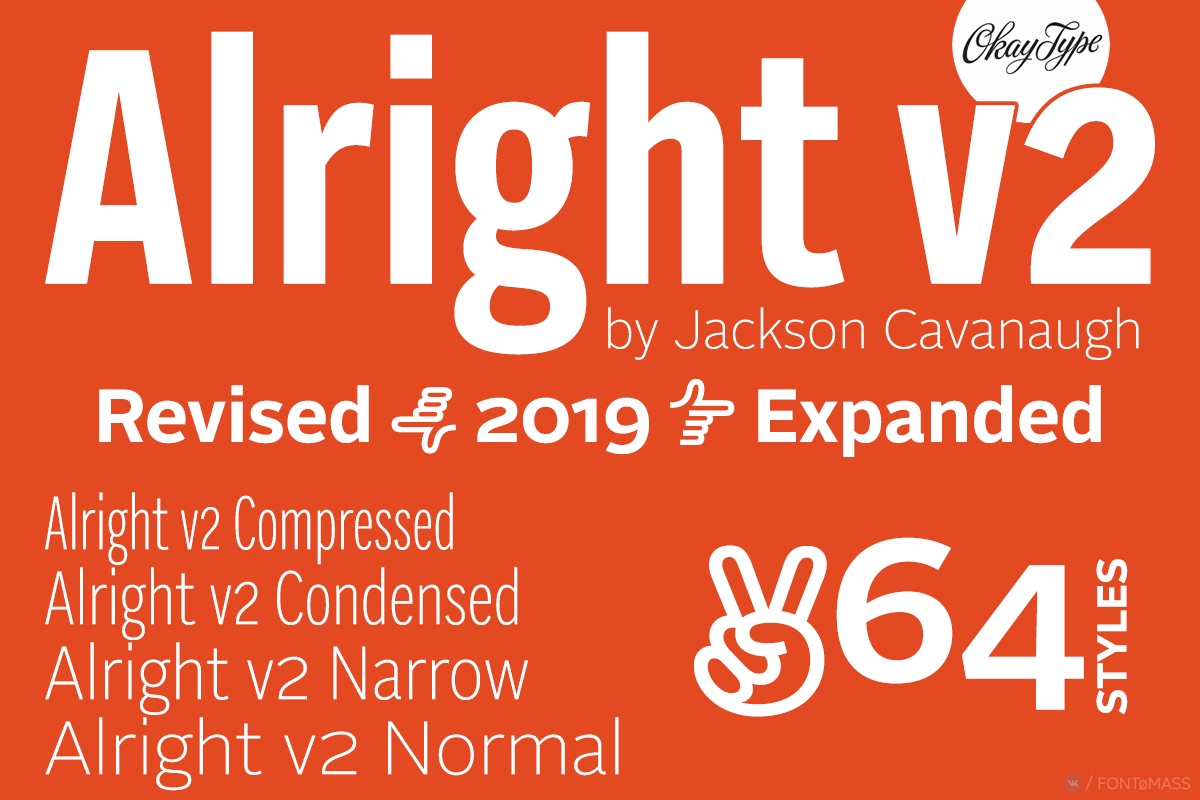
Alright v2 Font
Alright v2 Font is perfect for contemporary brand identities, modern startup logos, casual lifestyle branding, friendly app interfaces, approachable corporate communications, versatile web typography, social media graphics, relaxed restaurant signage, confident business materials, and optimistic marketing campaigns.
What makes Alright v2 Font so exciting is its remarkable ability to communicate confident approachability and modern optimism through letterforms that seem to radiate positive energy and reliable competence with every character. This enhanced typeface represents the evolution of casual professionalism, featuring characters that perfectly balance friendly accessibility with professional credibility. The font's refined design elements perfectly merge contemporary confidence with universal appeal, creating an indispensable tool that communicates reliability, positivity, and modern professionalism, making it essential for brands that want to project confident competence while remaining genuinely approachable and authentically human in their communications.
Alright v2 Font comes in multiple font families including Regular, Bold, Light, Italic, Bold Italic, Confident, Casual, and Optimistic variations. Each family member maintains the core approachable characteristics while offering different confidence levels and stylistic approaches to suit various contemporary branding requirements.
The confident precision in Alright v2 Font makes it particularly effective for modern businesses and service organizations where conveying trustworthy professionalism while maintaining human approachability is crucial for building customer relationships and brand loyalty. Its versatile letterforms work exceptionally well across all contemporary applications, from digital interfaces to print marketing materials, maintaining consistent positive impact and professional reliability.
Modern branding professionals recognize how Alright v2 Font transforms ordinary business communications into confident statements of professional optimism and approachable competence. The typeface's positive character set includes comprehensive international language support and contemporary typographic features that accommodate complex modern branding requirements and global market applications.
For creative professionals serving modern startups, service businesses, and contemporary lifestyle brands, Alright v2 Font serves as the perfect foundation for establishing memorable visual identities that capture the essential qualities of confident reliability, positive professionalism, and genuine approachability that define successful modern brands connecting authentically with today's consumers who value both competence and humanity.